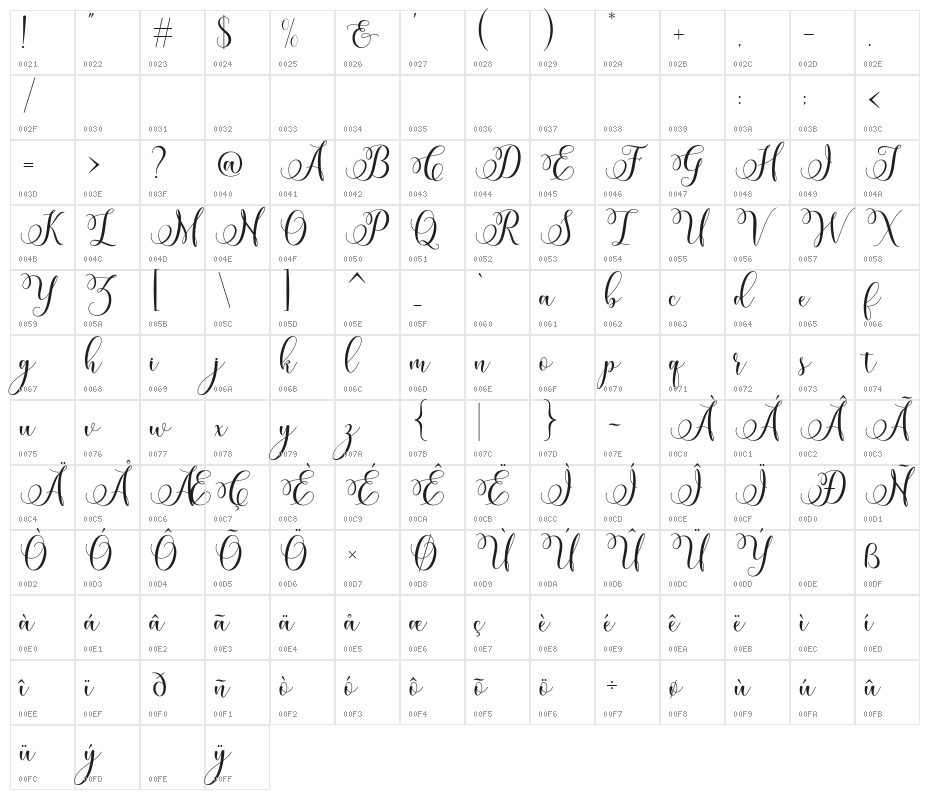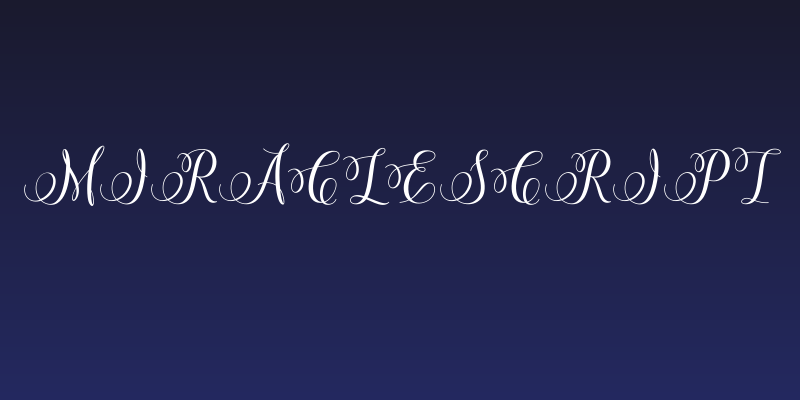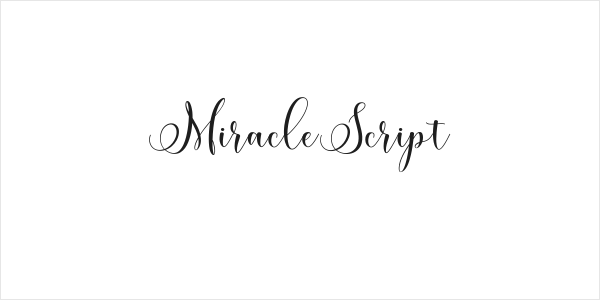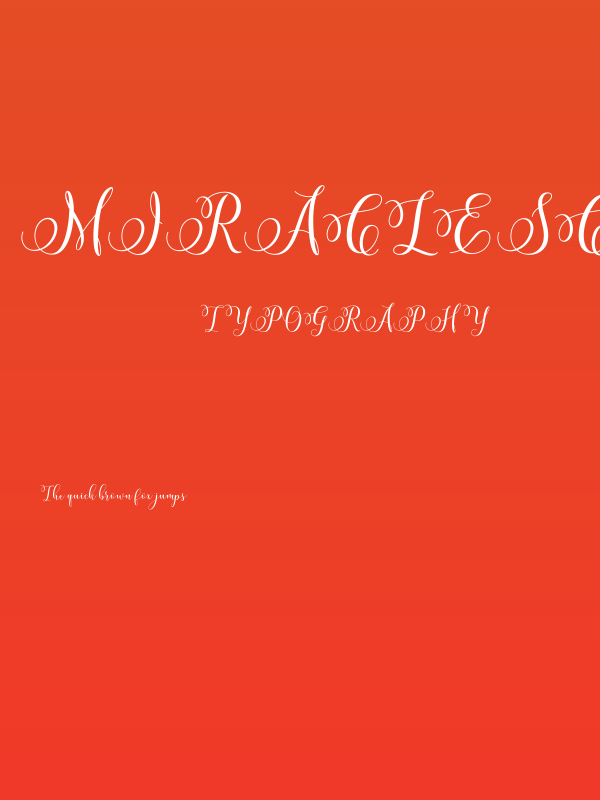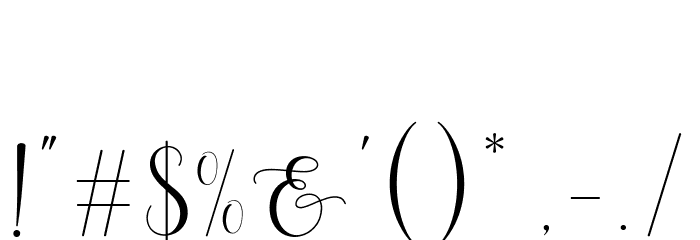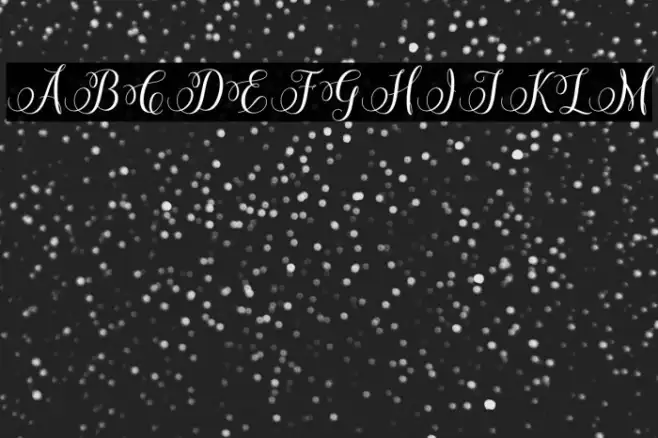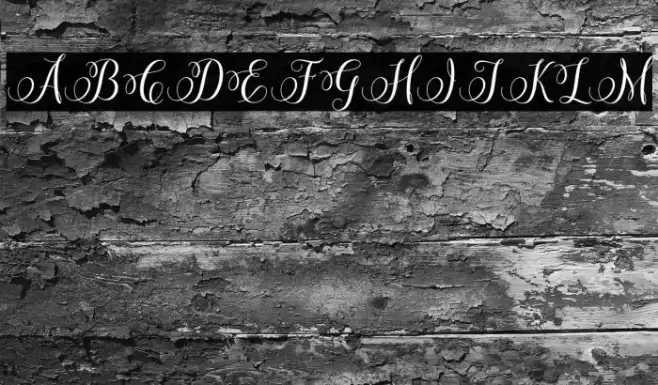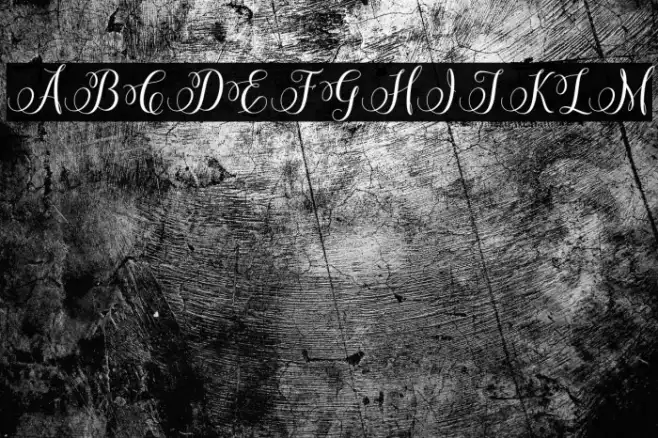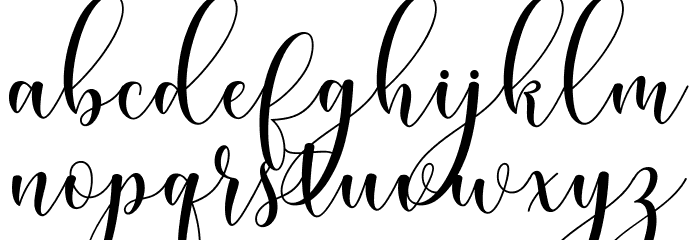
MiracleScript Font
MiracleScript Description
This elegant script font features flowing, interconnected letters with a sophisticated and graceful appearance. The uppercase letters are adorned with intricate loops and swirls, giving them a decorative flair. The lowercase letters maintain a smooth, cursive style that complements the uppercase, creating a harmonious balance. The numerals and special characters are designed with the same attention to detail, ensuring consistency throughout the font. This font exudes a sense of luxury and refinement, making it ideal for projects that require a touch of elegance.